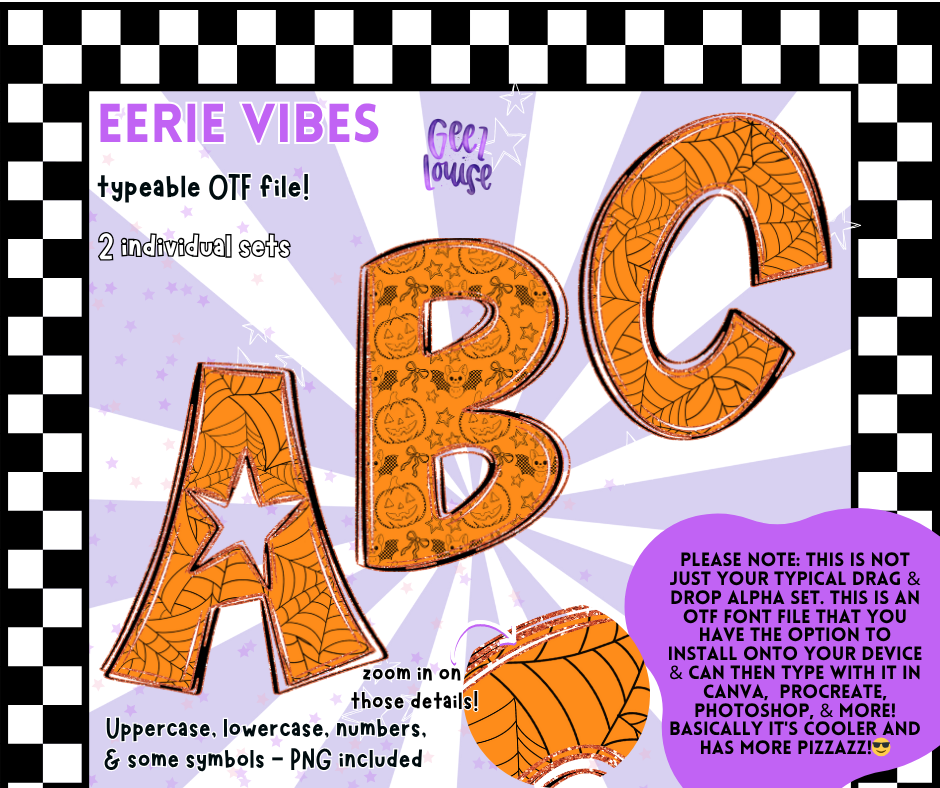
Eerie Vibes – Halloween-Themed OTF Font & PNG Alpha Set (2 Styles)
Eerie Vibes is here to bring the boo to your font game! 🎃 This Halloween-inspired typeable OTF font set is anything but basic. With TWO individual font styles, you’ll be ready to knock out eerie-sistible designs for shirts, tumblers, signs, and more.
– Uppercase, lowercase, numbers & some symbols
Use it like a regular font OR drag-and-drop the PNGs into your projects. Creepy, cute, and customizable—Eerie Vibes has you covered for all things fall and fun.